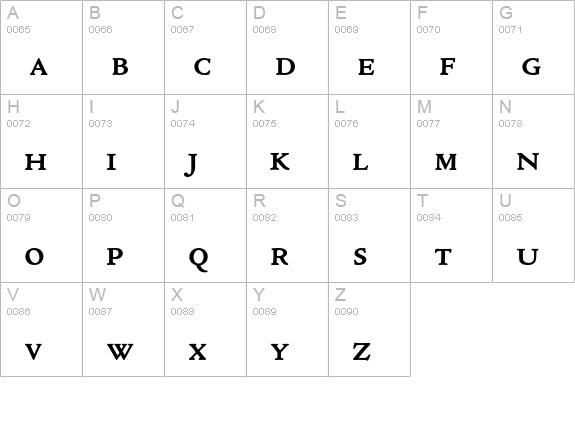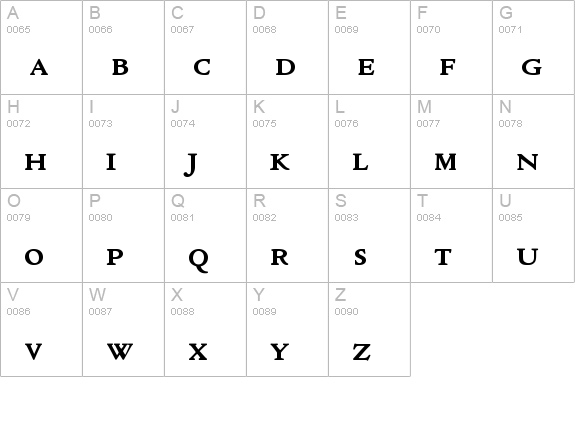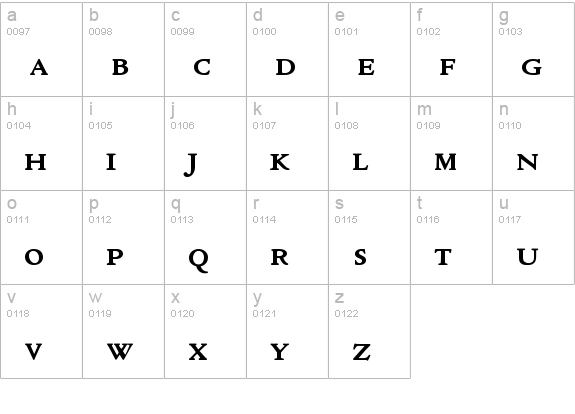
CloisterSmallCaps Font Details
CloisterSmallCaps font is a sophisticated and elegant typeface that exudes a timeless charm. With its small caps design, this font adds a touch of refinement to any project, making it perfect for formal invitations, branding materials, and editorial designs. The clean lines and classic proportions of CloisterSmallCaps lend a sense of tradition and professionalism to any text. Best of all, CloisterSmallCaps font is available for free download at FontsMarket.com. This means you can easily access this high-quality typeface to enhance your designs without any cost. Don't miss out on the opportunity to elevate your projects with the timeless beauty of CloisterSmallCaps font.